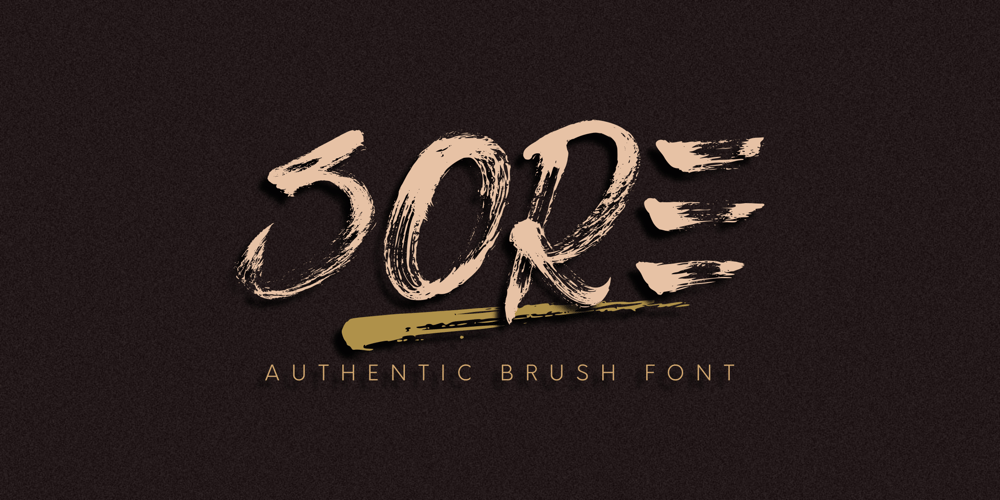
Sore Font Family was designed by Ibnu Utomo and published by Omotu. Sore contains 1 styles and family package options. Sore is an authentic brush font, real brush texture. All caps characters. Sore is suitable for branding, logotype, apparel, T-shirts, Hoodies, product packaging, quotes, flyer, poster, advertising and more.Whats Include?1. Uppercase and lowercase characters 2. Multilingual support.3. Numerals, punctuations, alternate, and ligatures4. Accessible in the Adobe Illustrator Glyphs panel, or under Stylistic Alternates in the Adobe Photoshop OpenType menu, Adobe InDesign, Corel Draw, even work on Microsoft Word. Please message me if you’re unsure of any language support.Thanks for looking, and I hope you enjoy it! Please don’t hesitate to drop me a message if you have any issues or queries.Omotu Studio